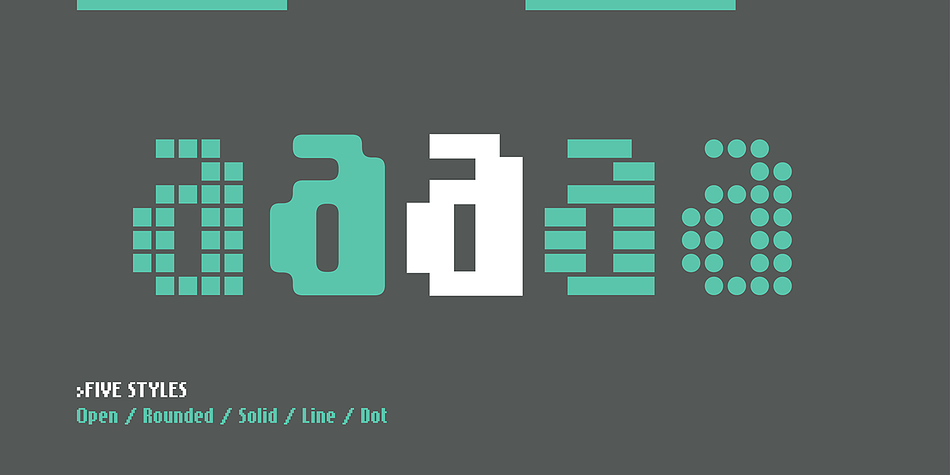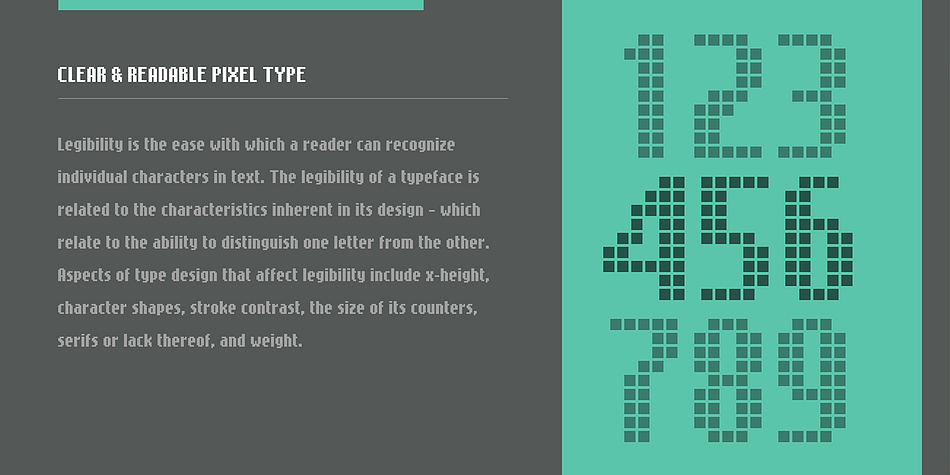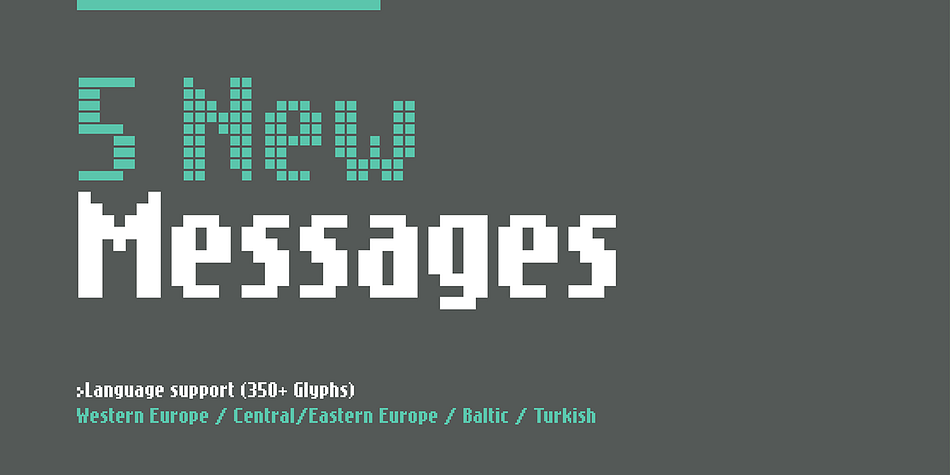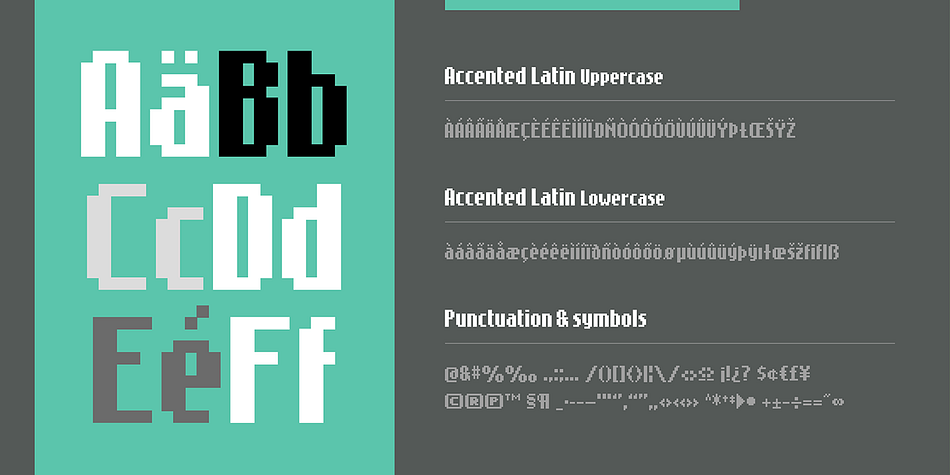
SB Message is a pixel font family. This typeface has five styles and was published by SelfBuild Type Foundry.
SB Message is a typeface inspired by the font used on the old Nokia cellphone displays. Although it later found use as a pixel font, during the early days of web design when designers were experimenting with pixel based graphics, it was originally designed for use in print. This was pre-smartphone era and Nokia phones were ubiquitous. Nokia featured the best design the mobile phone industry had to offer and it dominated the market in the years before Apple launched its game-changing iPhone. At this time, marketeers were taking their first tentative steps in attempting to engage consumers using the relatively new technologies of the web and SMS messaging and at that time few typefaces existed that were suited for these uses. SB Message takes its cues from the Nokia font, but critically it is taller and narrower, improving its impact as a display typeface for use in headlines. Initially only two styles were produced, Solid and Open, aimed at creating a screen-like headline, but later dot matrix, VDU line and rounded pixelfont versions were added, giving the designer more flexibility in using this typeface. SB Message still performs as a very legible pixelfont and is optimised for use at 10px height.